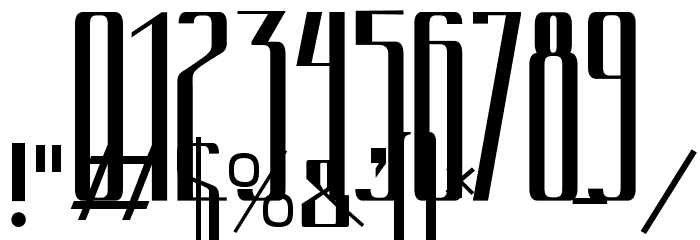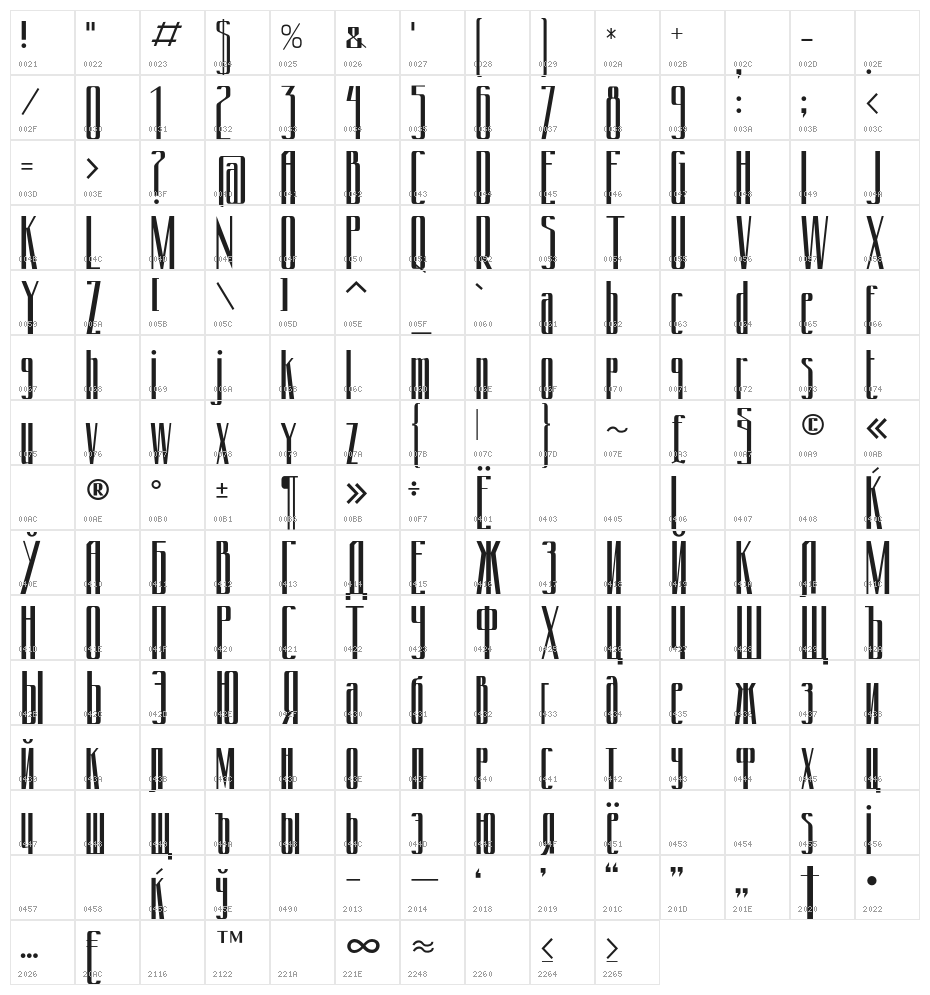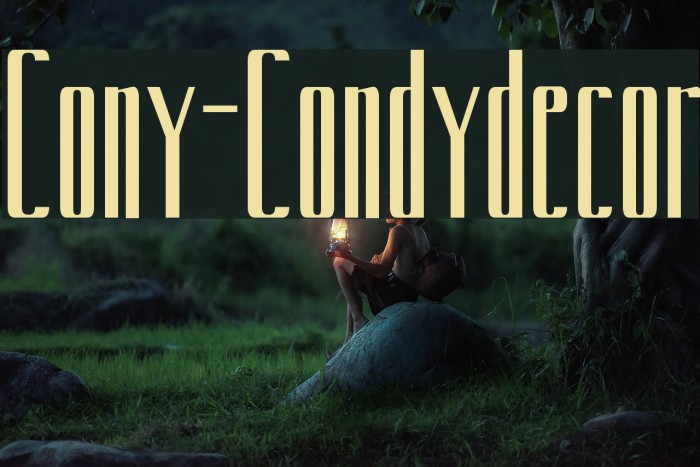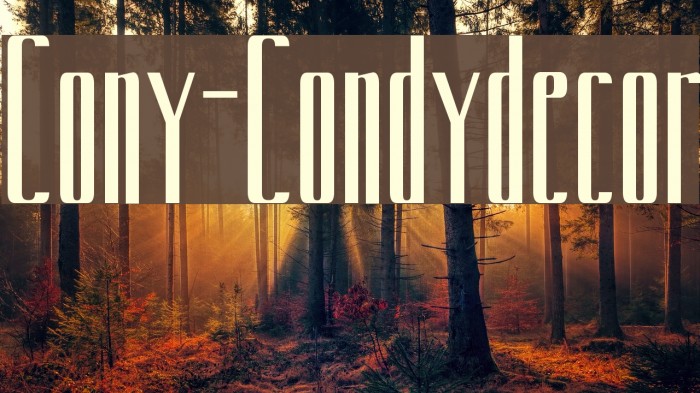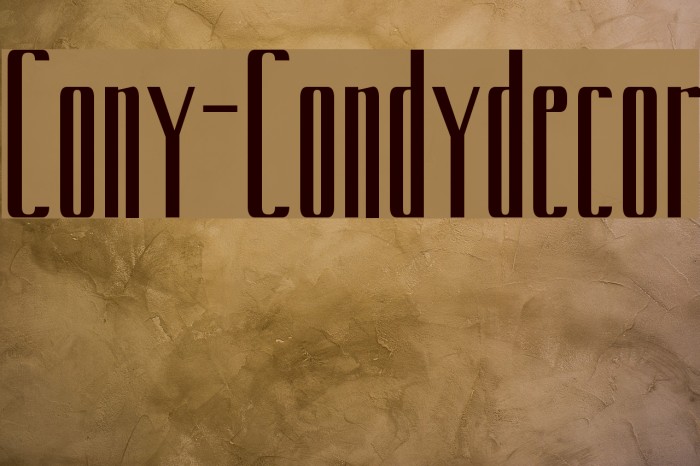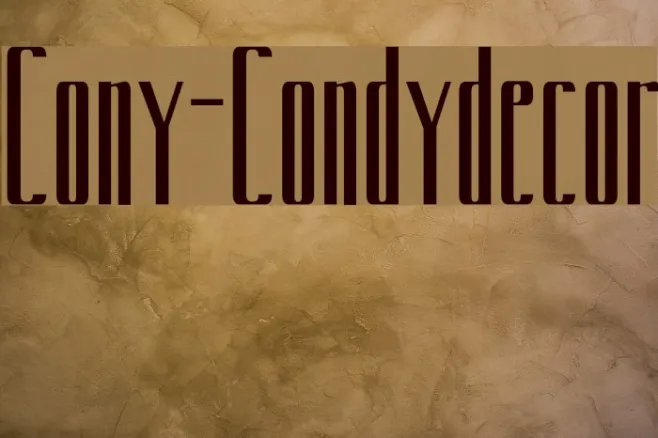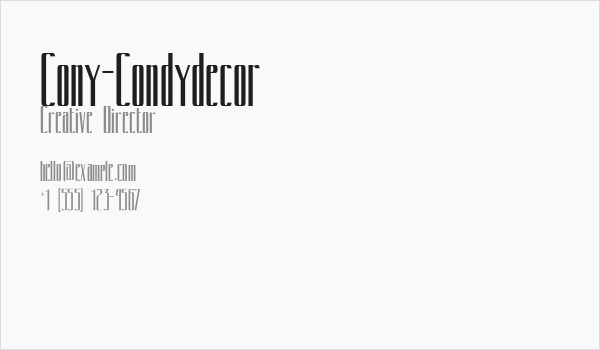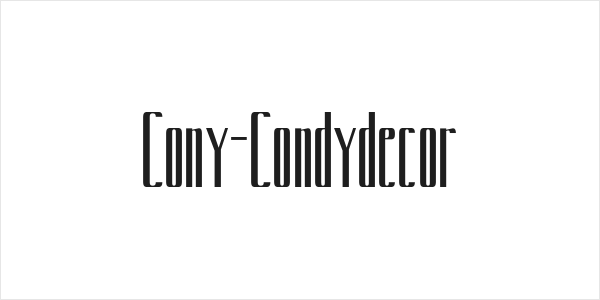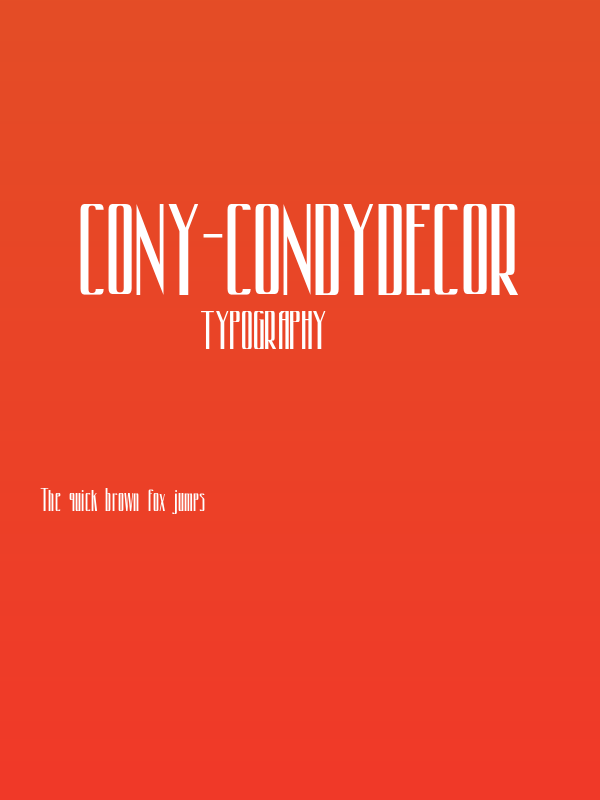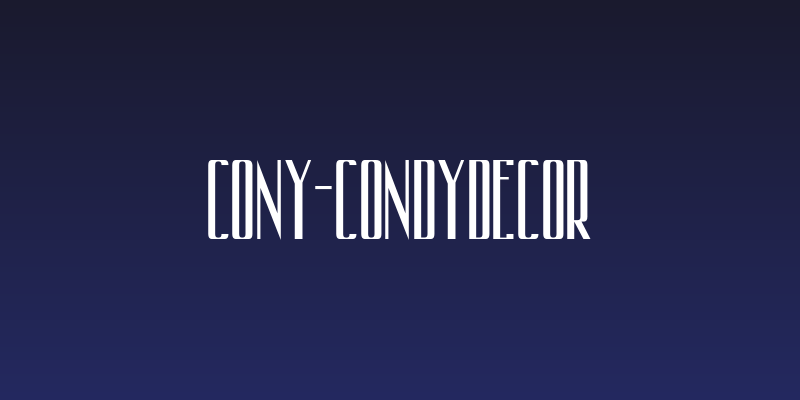
Cony-Condydecor Font
Cony-Condydecor Description
This font features a highly decorative and elongated design, characterized by tall, narrow letterforms with sharp angles and a distinct modern flair. The uppercase letters are particularly striking, with vertical emphasis and minimal horizontal strokes, giving them a sleek and sophisticated appearance. The lowercase letters maintain this elongated style, ensuring consistency throughout the typeface. Numbers and special characters follow the same design principles, making them cohesive with the overall aesthetic. The font's unique style makes it ideal for projects that require a bold statement or artistic touch.
| Proposed Projects | Ideal for posters, album covers, branding, and any project that requires a bold, artistic statement. |